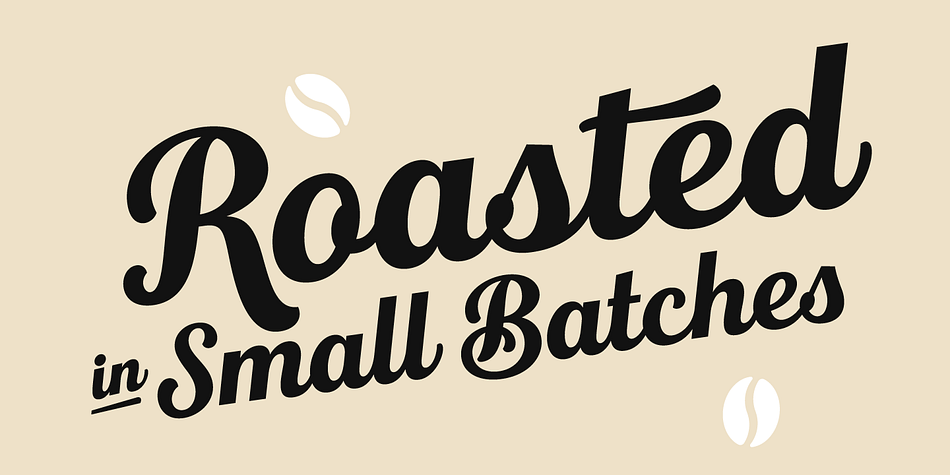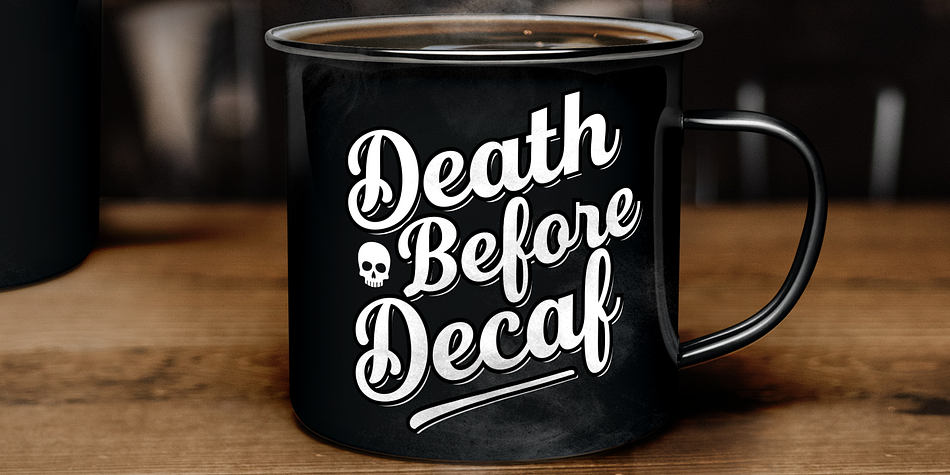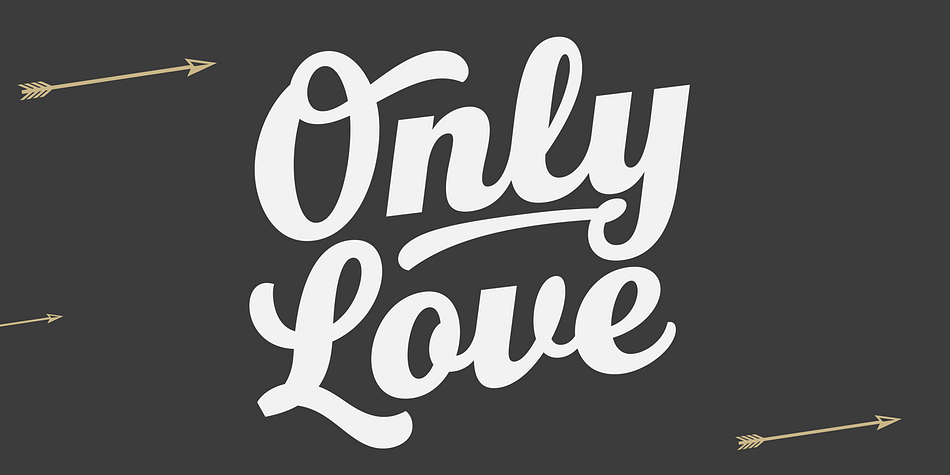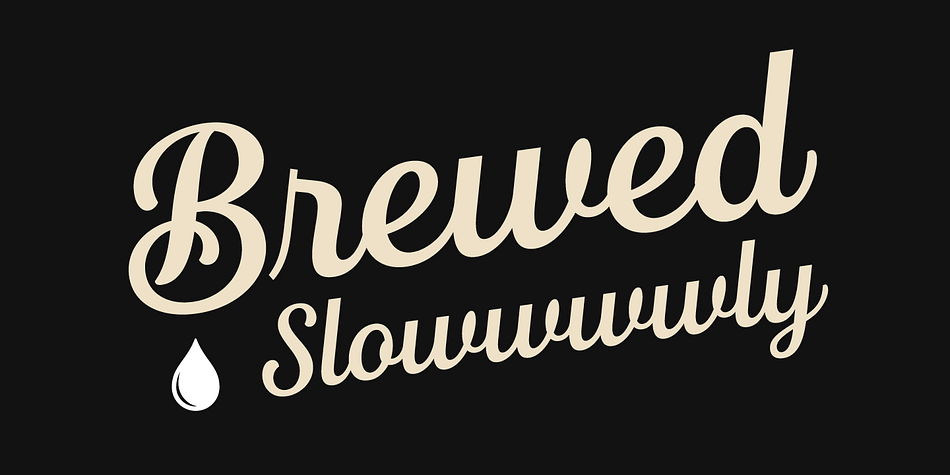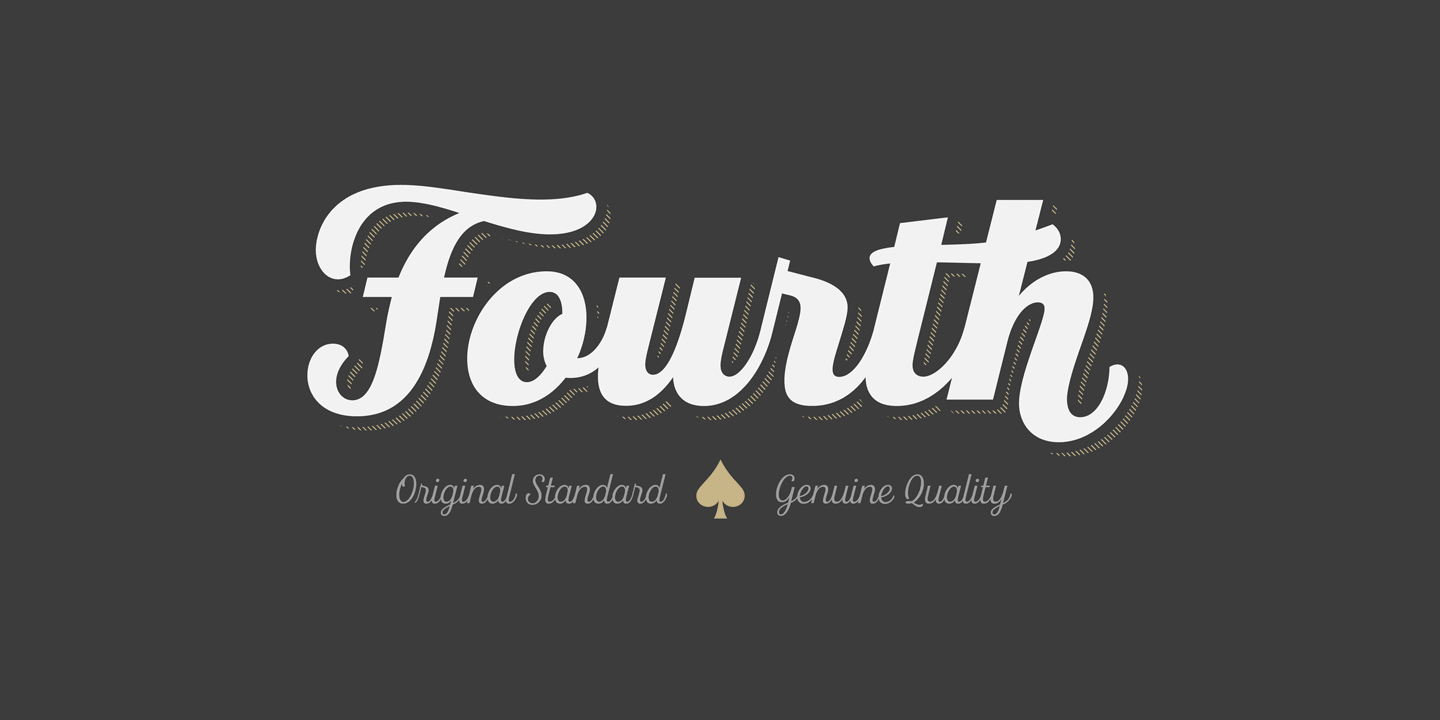
Designed by Jason Vandenberg, Fourth is a brush script and dingbat font family. This typeface has eight styles and was published by Jason Vandenberg.
Fourth is a contemporary roundhand script with a classic feel. It draws inspiration from classic Americana – baseball scripts, sign painting and branding.
The family consists of seven weights with ornament extras for good variety in layout and logo development. The forms are rational and refined for consistency and legibility. Contextual alternates are included for smooth initial and ending forms. Stylistic alternates are available for the commonly substituted forms; s, r, l, f, k, and z.
Fourth also features Swash capitals, swash lowercase, underlines and catchwords for custom styling.